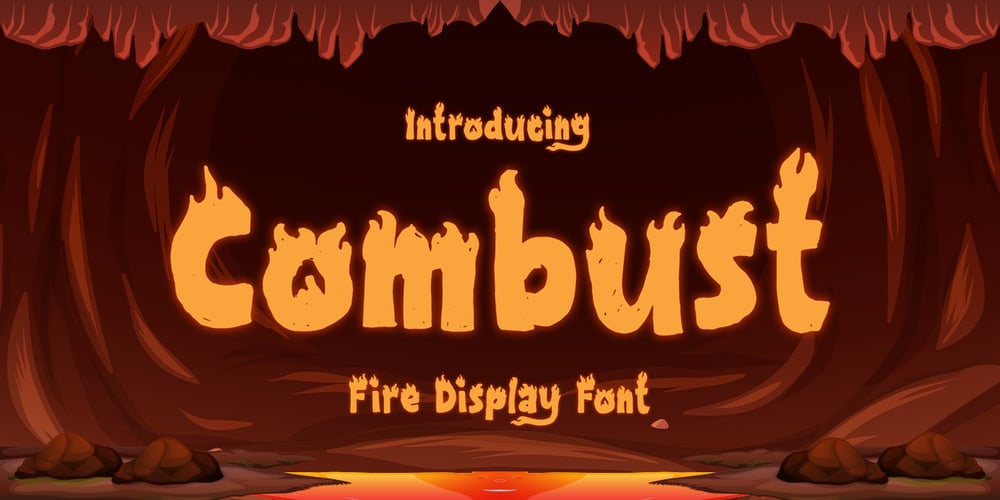
Combust Font Family was designed by Hilmius Akbar and published by Typefactory. Combust contains 1 styles and family package options. Combust is a modern playful display font with fire.The font is thick so it can still be read even if there is a burning fire, suitable for various purposes, poster design, for video game or movie titles, or promotions on social media.